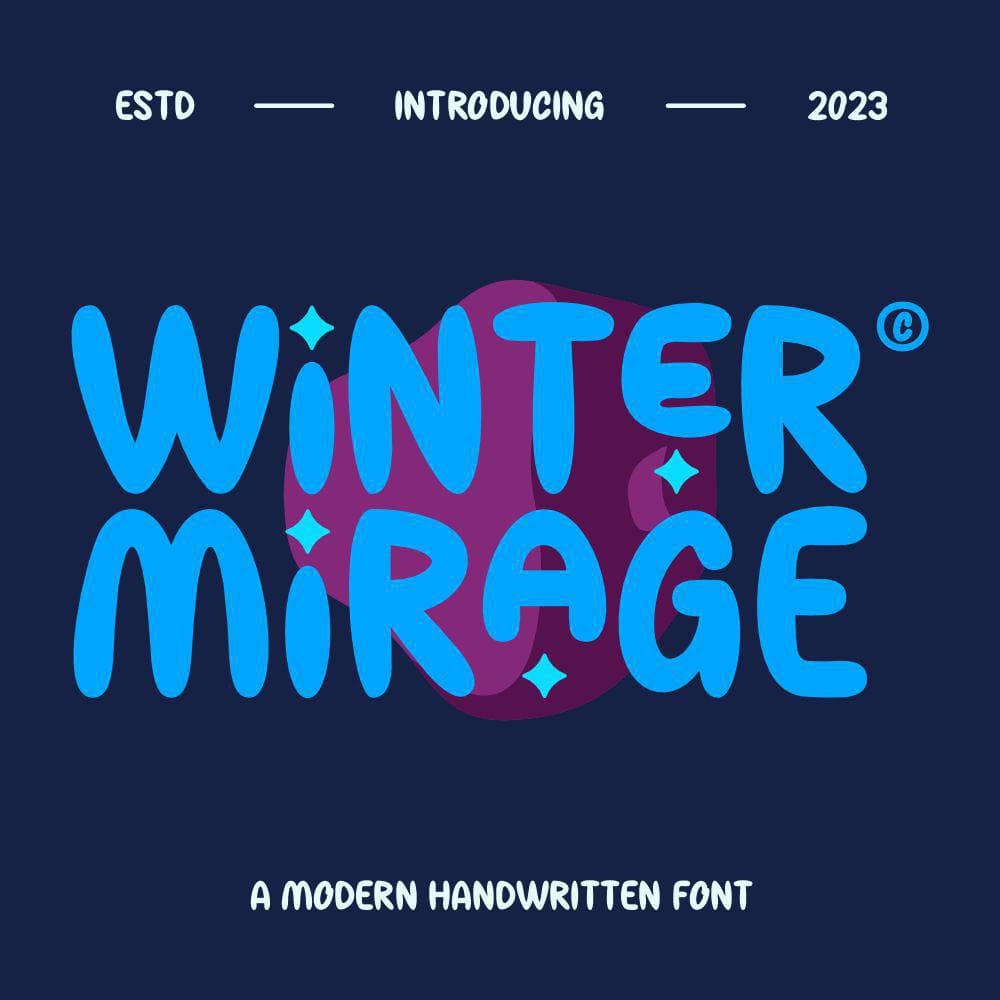
<p>Introducing Winter Mirage font is a modern handwritten typeface characterized by its playful and bold appearance. The letters exhibit a rounded and fluid design, evoking a sense of warmth and friendliness, making it suitable for festive and creative designs. The font incorporates subtle decorative elements, such as small stars and dots, adding a whimsical and dynamic touch to the typography.<br>The strokes of the letters are thick and well-balanced, ensuring high readability while maintaining a fun and informal aesthetic. The font's smooth curves and slightly irregular shapes contribute to its handwritten feel, making it ideal for seasonal promotions, greeting cards, branding, and merchandise designs.<br>Moreover, the "Winter Mirage" font is versatile, seamlessly adapting to both digital and print media. It effectively conveys a cheerful and lively mood, making it perfect for projects that require an engaging and visually appealing typeface. Its combination of cool and playful characteristics makes it a standout choice for winter-themed or holiday-related design works.</p>